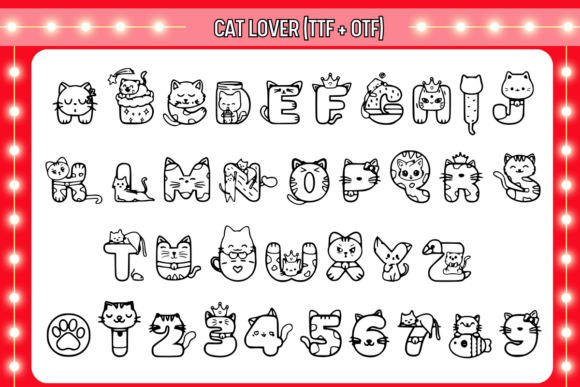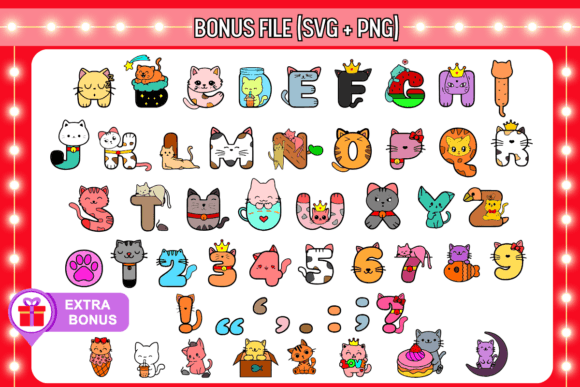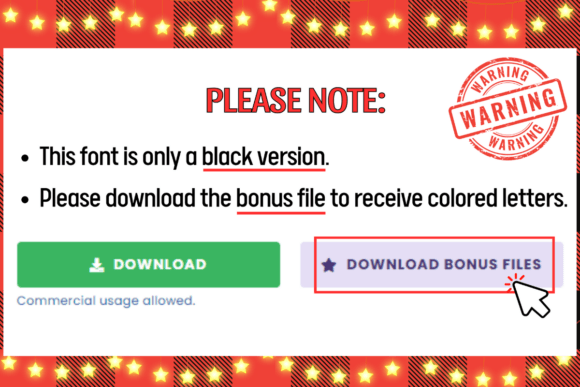
Cat Lover Font
Cat Lover is a playful decorative font where each letter is creatively shaped from cute, tiny cats, making it perfect for any feline fan!